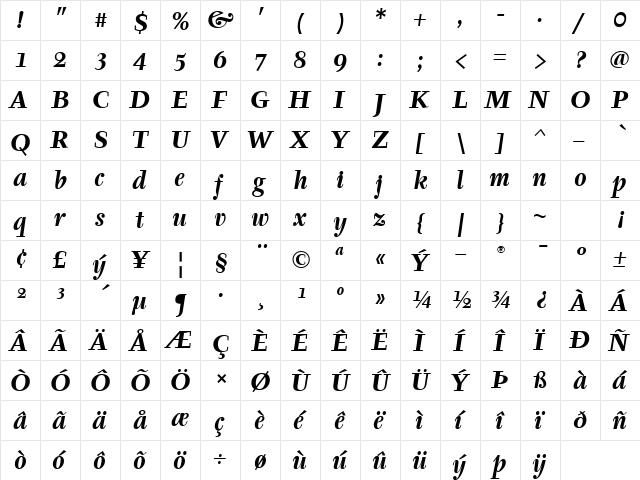
TyfaITC TT BoldItalic
BoldItalic · International Typeface Corporation Josef Tyfa/Frantisek Storm ·
Foundry International Typeface Corporation
DesignerJosef Tyfa/Frantisek Storm
Design Context for TyfaITC TT Typeface
TyfaITC TT is a composed and adaptable typeface that performs quietly and consistently across a wide range of design contexts. The dynamic lean of this cut emphasises speed and emphasis in any layout. Its bold stroke weight gives it real presence on the page.
Pro Tip: Use TyfaITC TT for emphasis, pull quotes, and subheadings where its slanted energy can add rhythm to the layout.